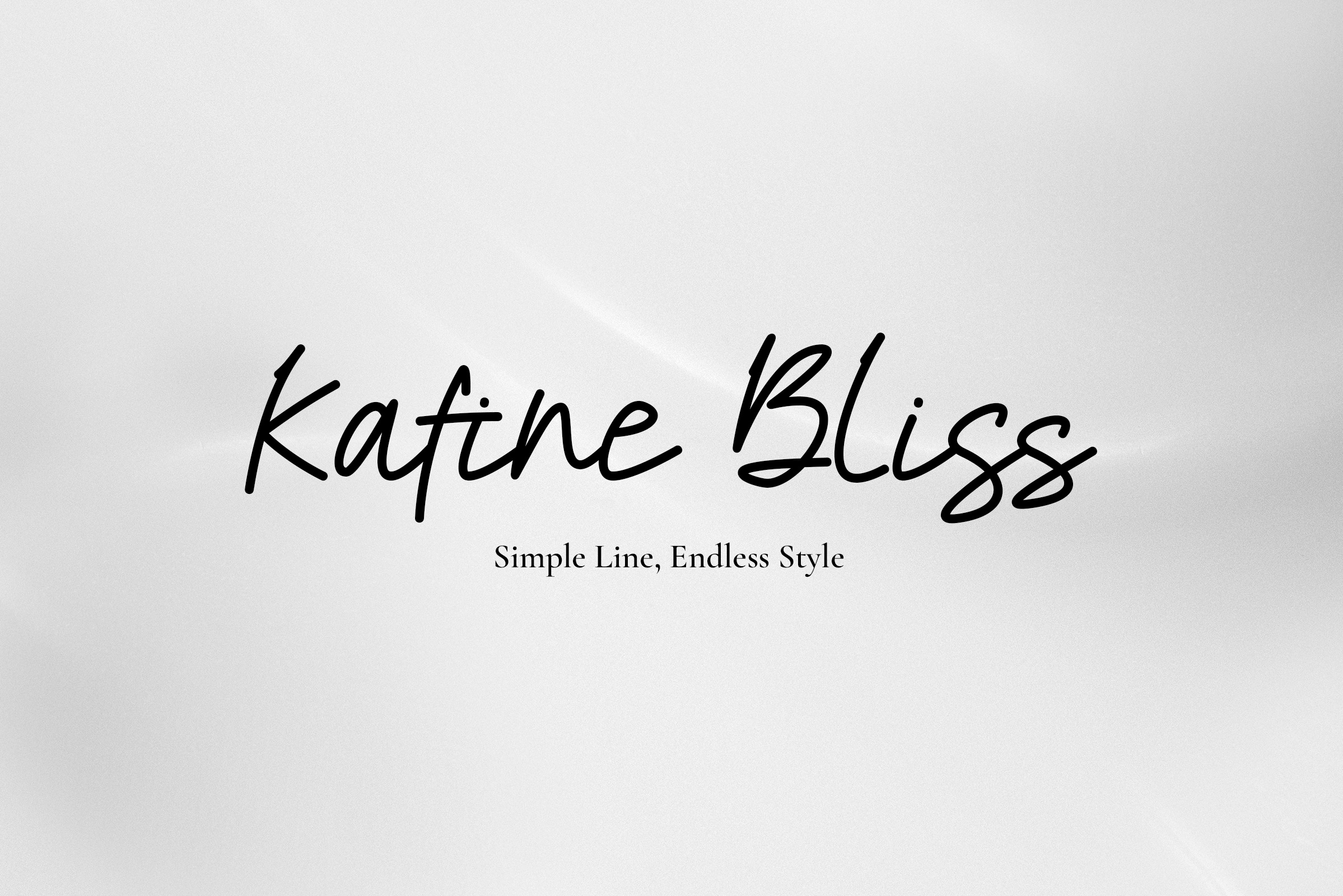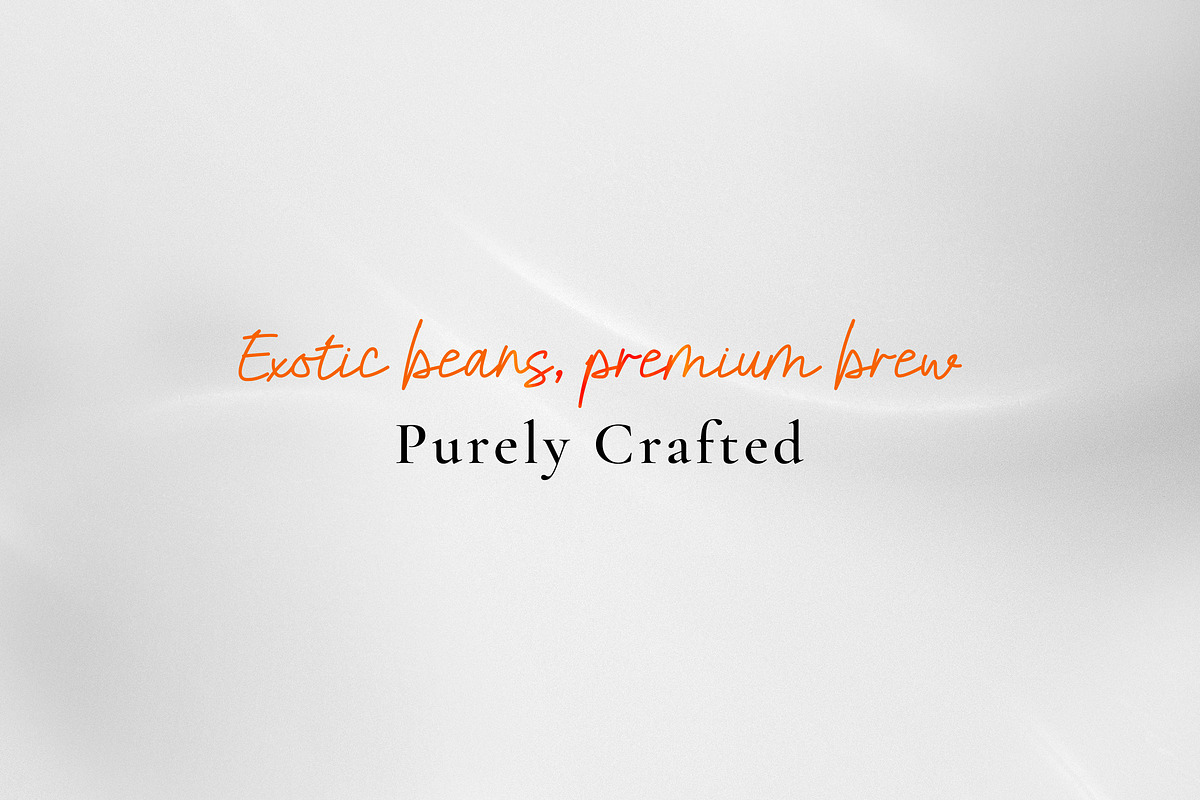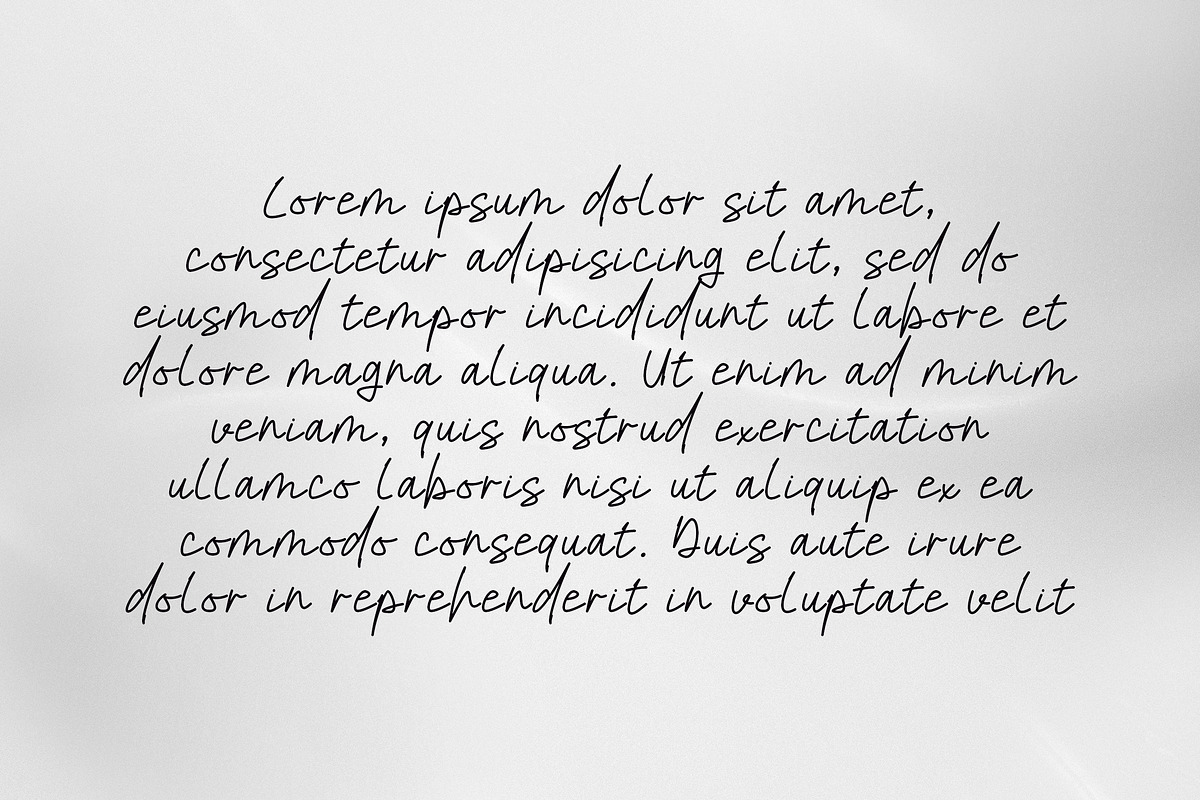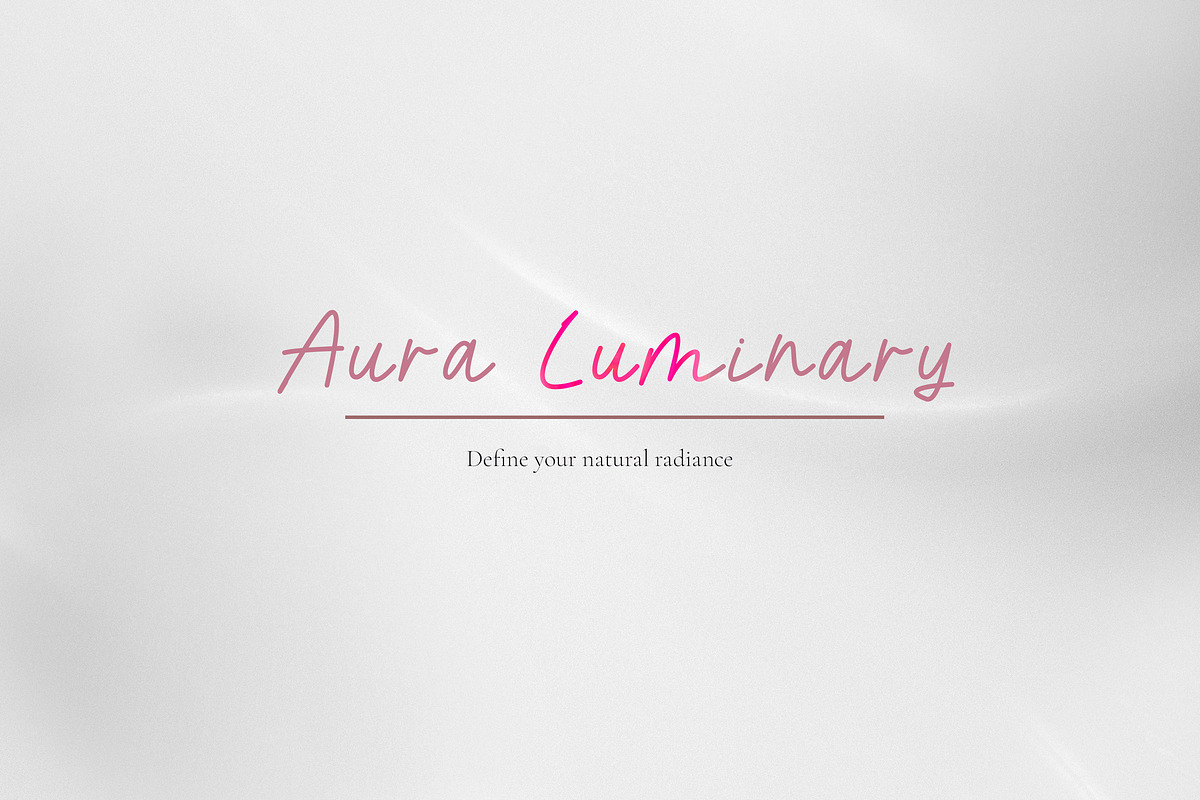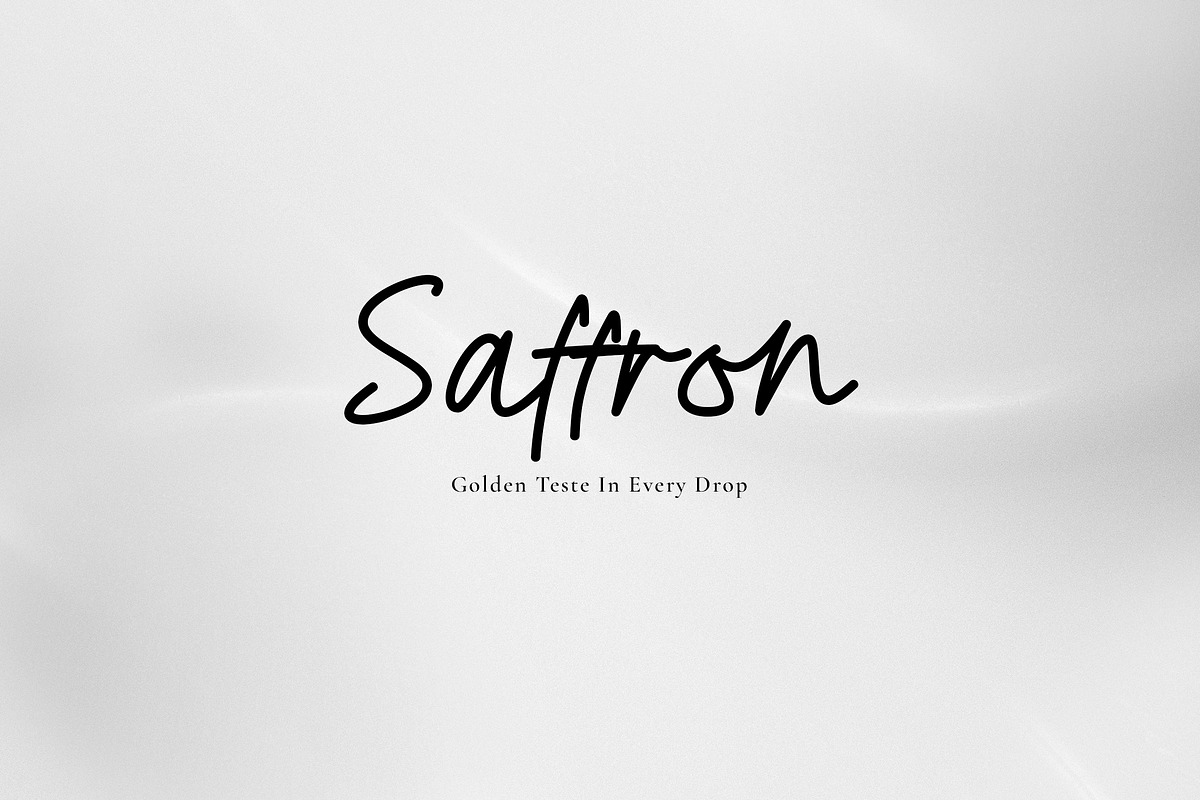
Kafine Bliss - Monoline Font
Introducing Kafine Bliss – The Perfect Blend of Casual Script and Natural Print
Kafine Bliss is a unique monoline font designed to capture the true essence of natural handwriting. Unlike traditional script fonts, Kafine Bliss features a beautiful, rhythmic mix of connected script letters and standalone print characters. This deliberate combination gives the font an incredibly authentic, relaxed, and organic feel.